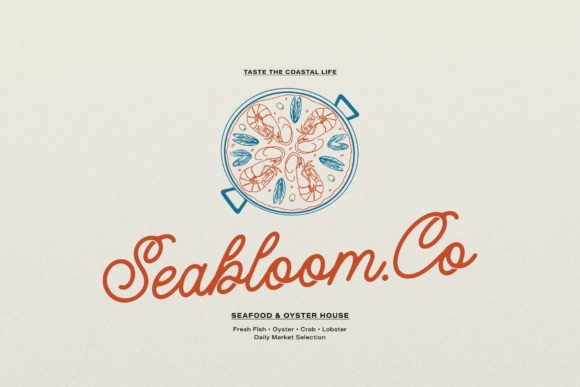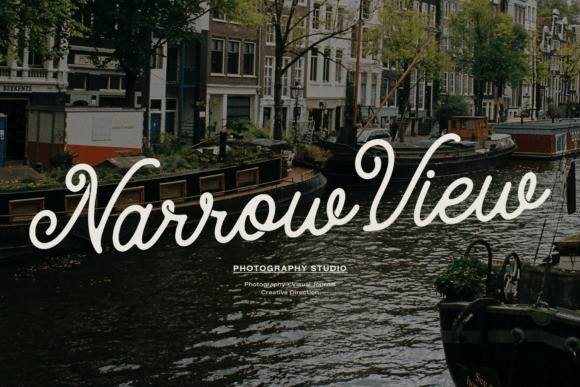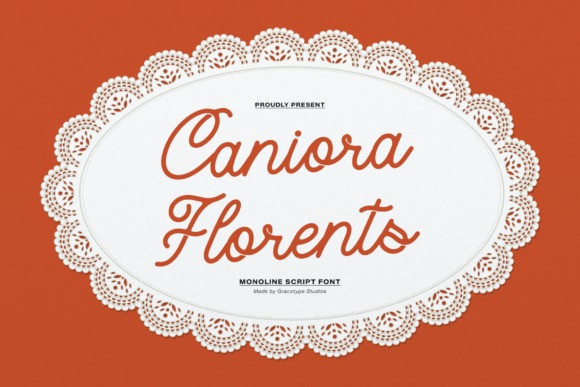
Caniora Florents Font
Caniora Florents Font a beautiful monoline script font. This elegant typeface features an upright cursive anatomy built with uniform medium-weight line profiles and an airy, welcoming spacing structure. Its absolute signature personality lies in its comforting, hand-penned rhythm—highlighted by friendly loops on the capital “C” and “F” and soft, organic connections that look as though they were sketched with a fine-point gel pen. Caniora Florents is an extraordinary option for boutique bakery logos, custom recipe book titles, cottagecore lifestyle branding, cozy greeting cards, and artisanal food packaging. It delivers a rich sense of professional design control and legendary handcrafted warmth to your creative assets, ensuring your text feels deeply personal.